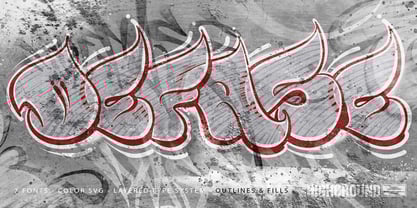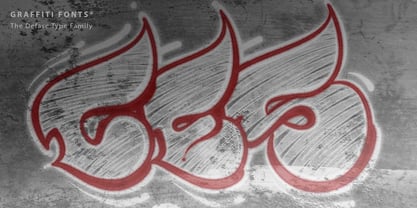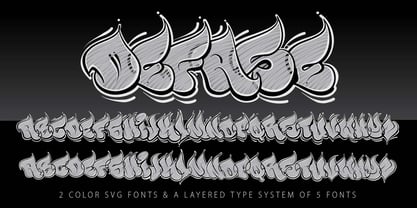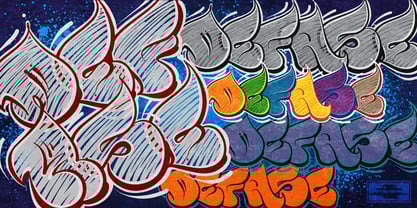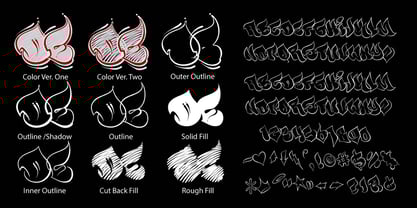
Defase Graffiti
by Graffiti Fonts
The Defase Graffiti Font Family was designed by Matthew Napolitano and published by Graffiti Fonts. Defase Graffiti contains 7 styles and family package options. More about this family
Defase is a "Throwie" style graffiti font family consisting of two, color SVG fonts and five individual, stackable fonts creating for outlines, solid fills, rough fills, outer outlines & inner outlines. The five styles can be layered in any order, allowing many possible variations of any design. Each style includes 2 alphabets, numbers and dozens of common punctuation marks, symbols and decorative elements.